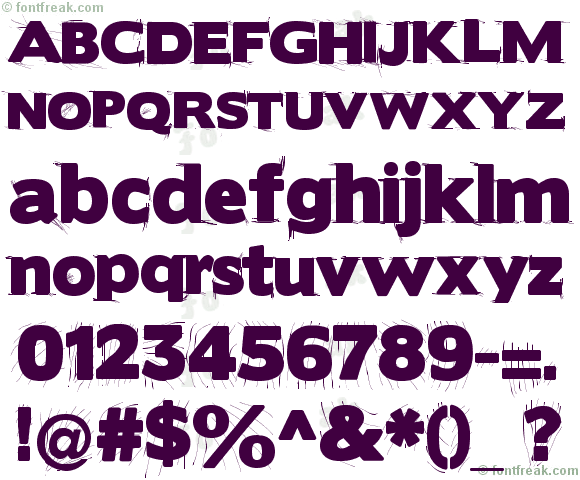
BorisBlackBloxx
BorisBlackBloxxDirty
About Boris Black Bloxx
Boris Black Bloxx is a striking display font created by Manfred Klein, characterized by its bold, geometric shapes that exude a modern aesthetic. This freeware font showcases a unique blend of thick and thin strokes, giving it an impressive visual impact that stands out in any design. With its strong structure and clean lines, Boris Black Bloxx is an excellent choice for projects that require a touch of sophistication combined with a contemporary flair. The font features consistent spacing and well-defined characters, making it easy to read while maintaining a playful, artistic vibe.
Ideal for a variety of creative applications, Boris Black Bloxx shines in scenarios such as movie posters, where its boldness can effectively capture attention. It works beautifully on restaurant menus, offering a modern twist that can elevate any dining experience. Furthermore, the font is perfect for branding projects that seek to make a memorable impression, as well as for promotional materials and social media graphics that demand a distinctive voice. Graphic designers and small business owners alike can leverage the unique qualities of this font to enhance their projects and engage their target audience.
What sets Boris Black Bloxx apart is its versatility and eye-catching design, making it a go-to choice for creatives looking to make a statement. The balance of geometric precision and artistic flair allows it to adapt to a wide range of themes while maintaining a cohesive look. With the Boris Black Bloxx font free download readily available, you can easily incorporate this dynamic typeface into your next design project and elevate your work to new heights. Discover the potential of Boris Black Bloxx and make your designs unforgettable.